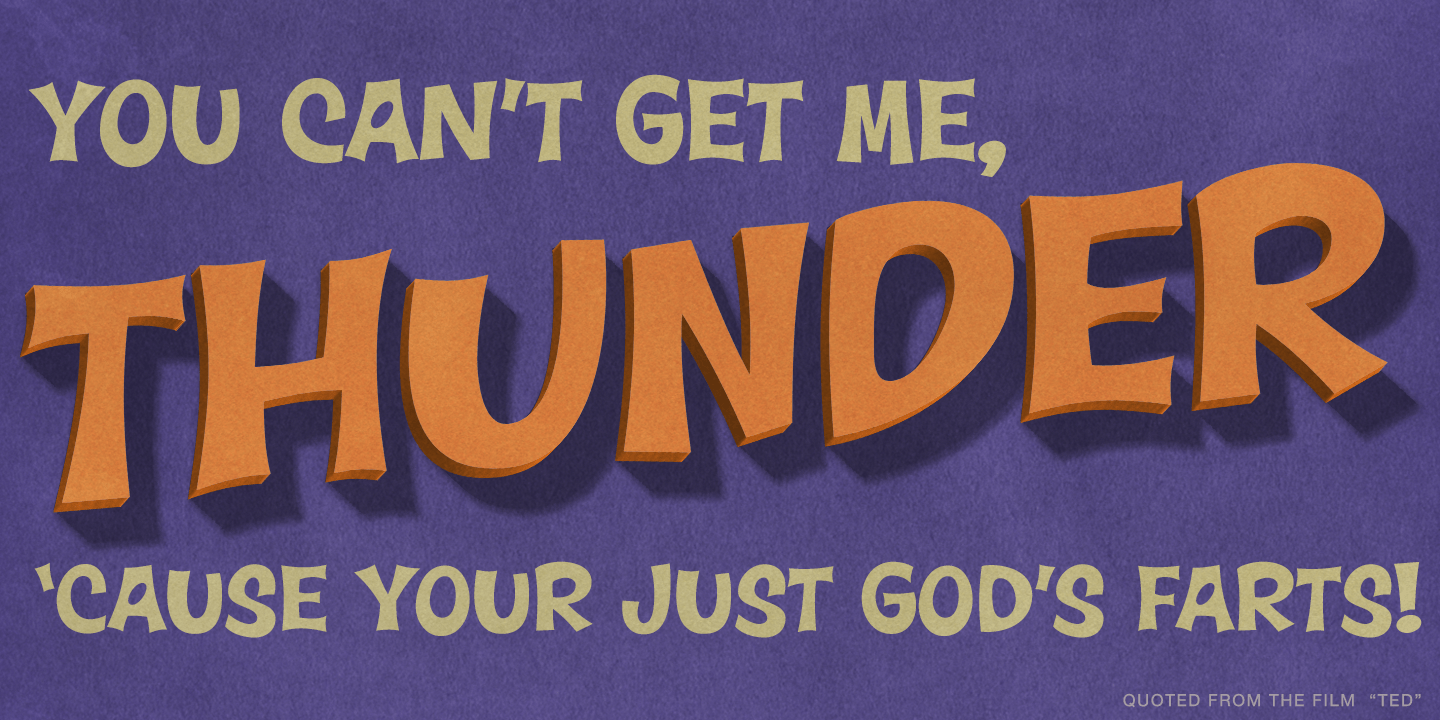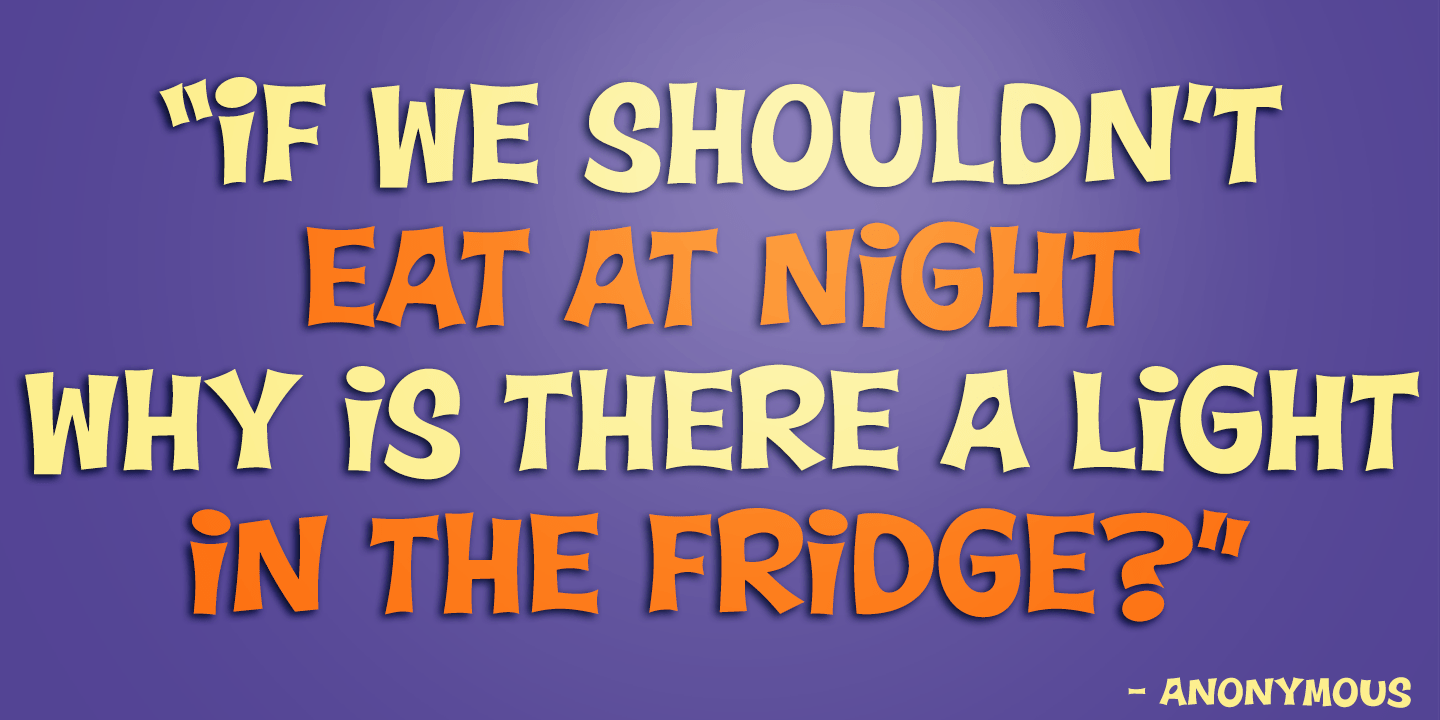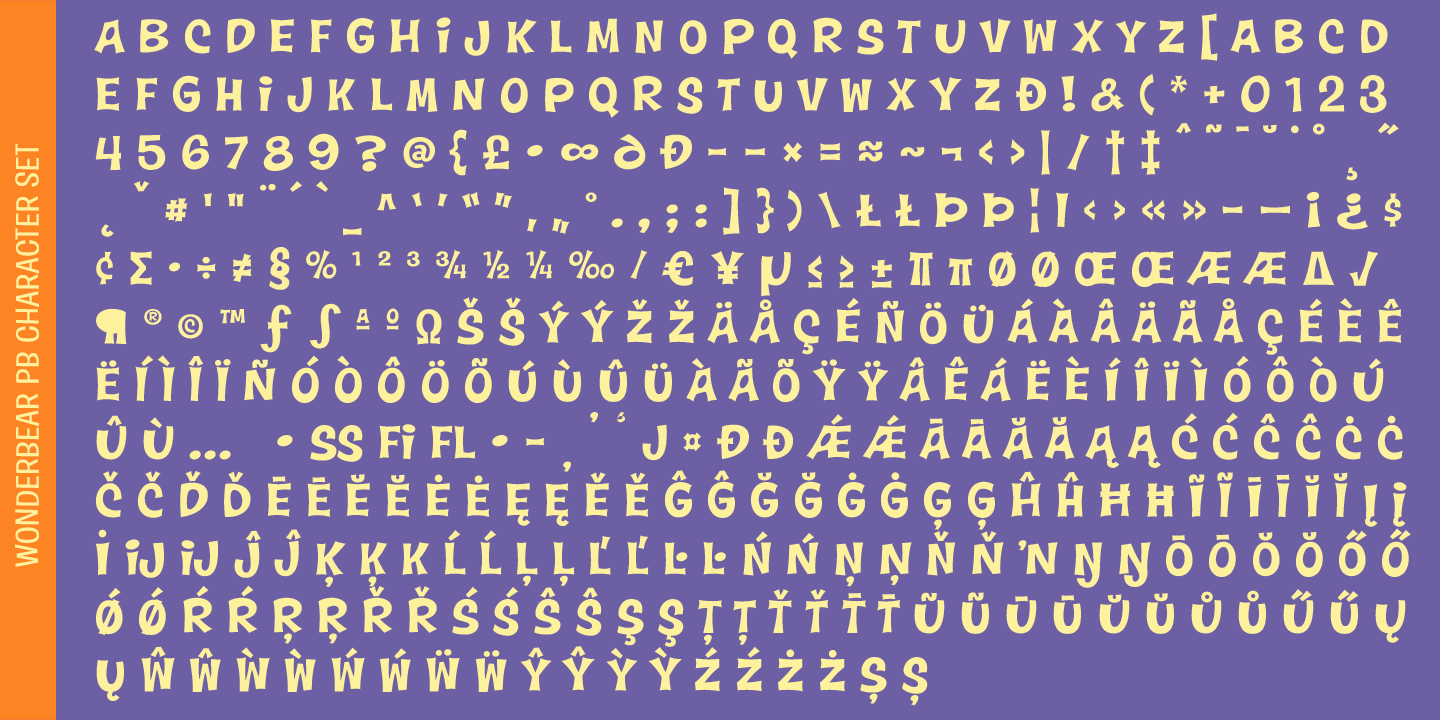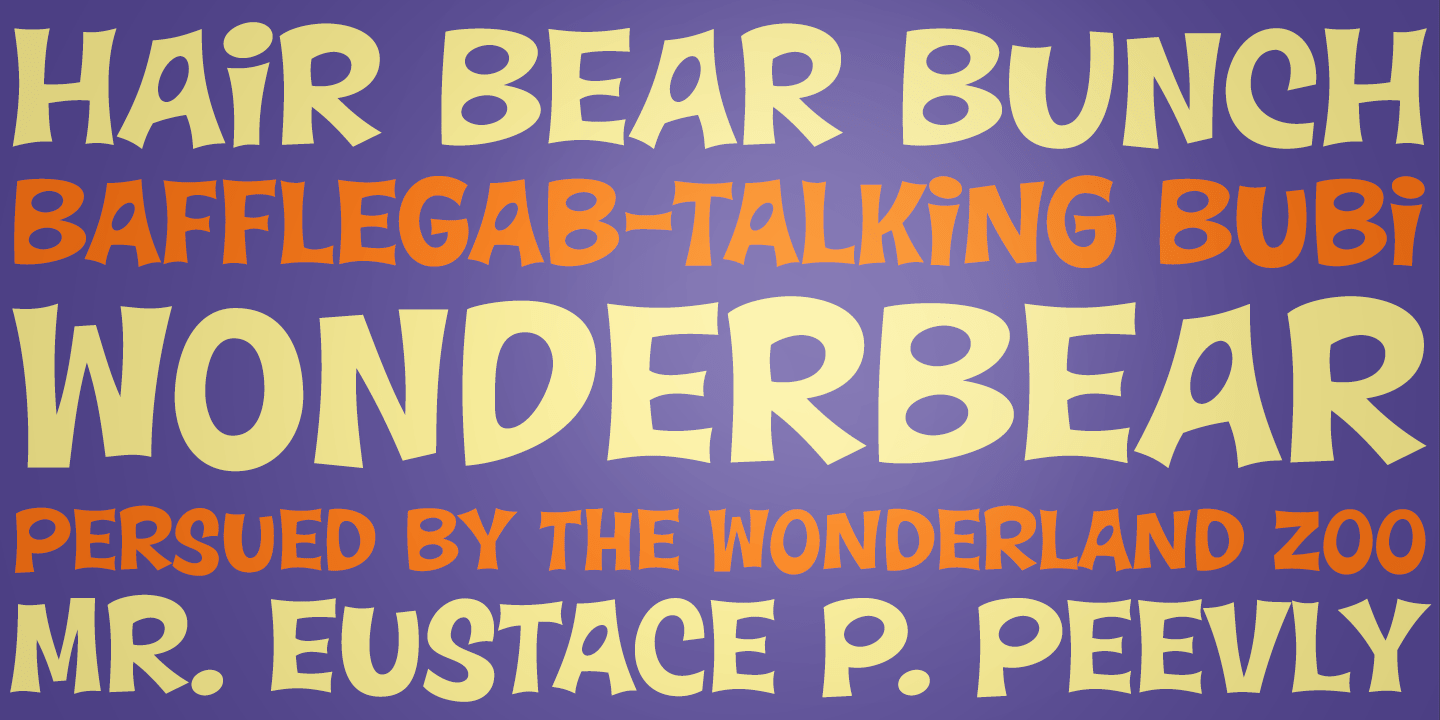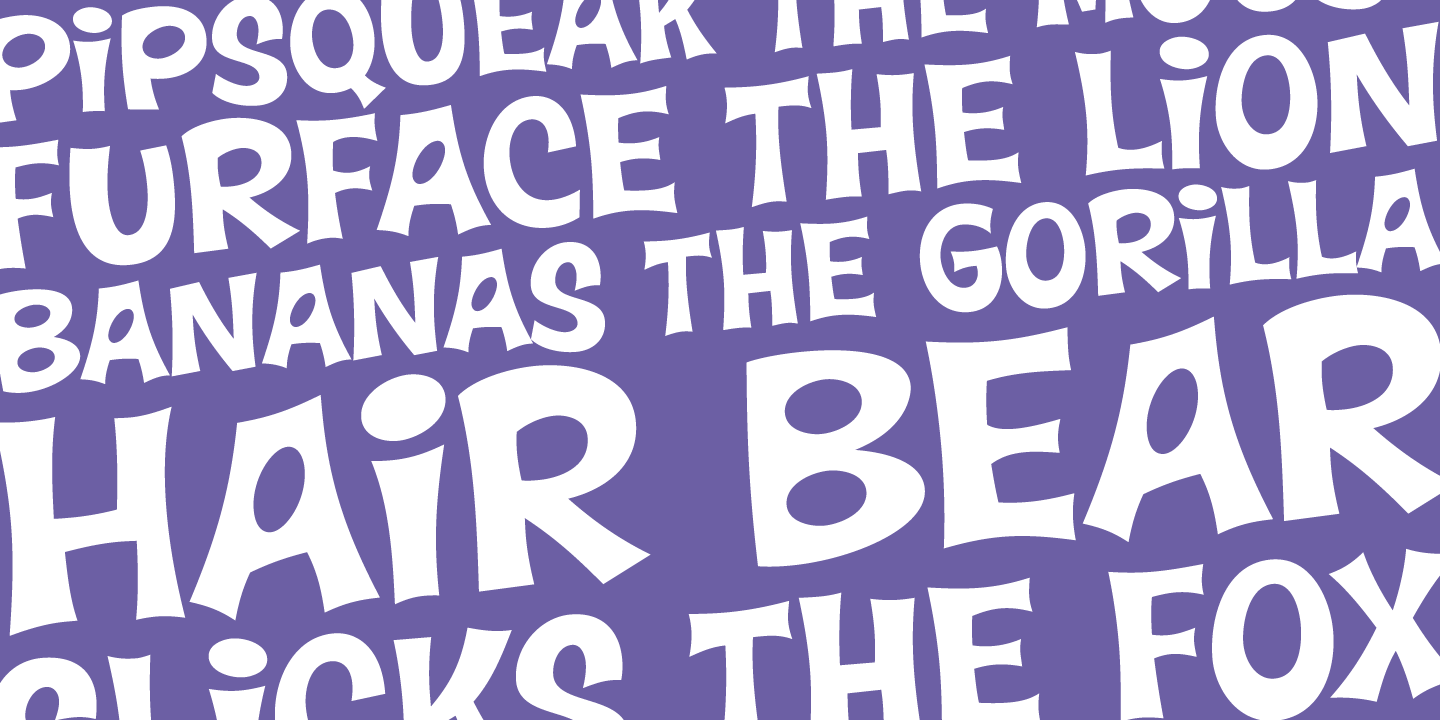
From the title screens and comic books of the Hair Bear Bunch comes the fun and funky Wonderbear typeface. All that 70\’s flavor packed into a Caps/Alt Caps typestyle reminiscent of a lovable limited run cartoon show. The Hair Bears miss you as much as…